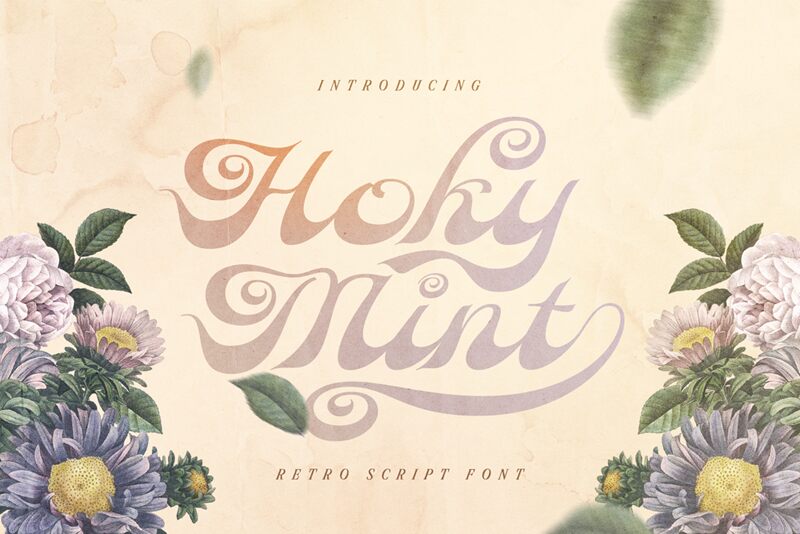
Hoky Mint, the retro brush font designed by Alit Design, is the perfect addition to your vintage-inspired projects. With its semi-bold weight and hand-drawn feel, this font evokes a sense of nostalgia and authenticity. Use it for logos, packaging, posters, or any design that needs a touch of retro charm. Its unique style makes it suitable for a variety of projects including fashion branding, food packaging design or even travel brochures. Hoky Mint is sure to stand out and make an impact on any project you use it for.
Hoky Mint